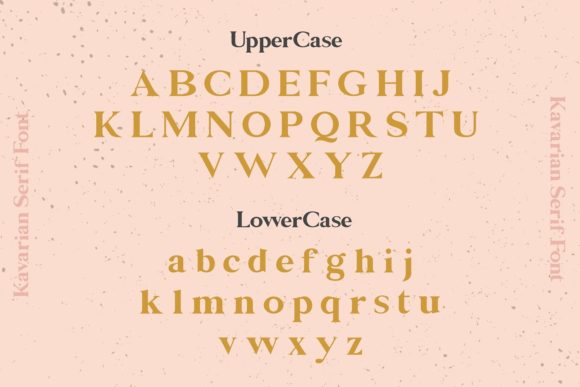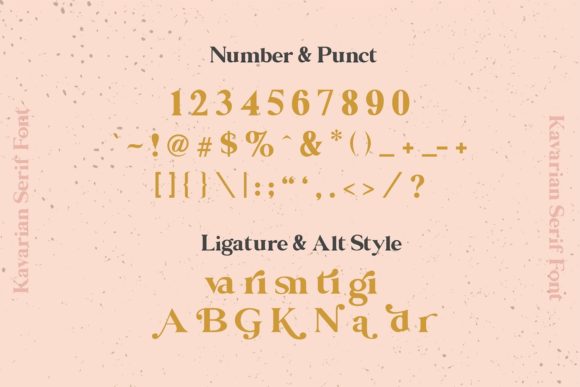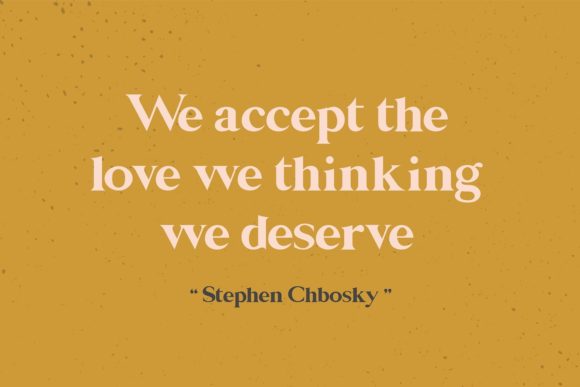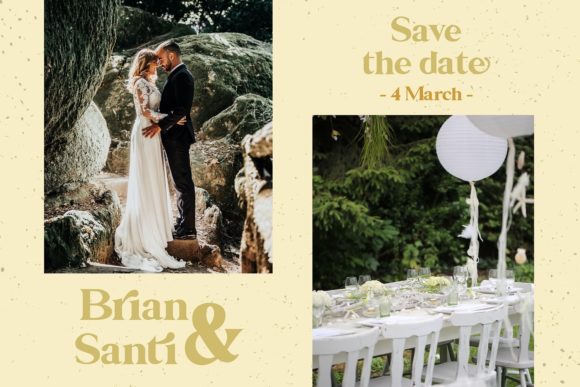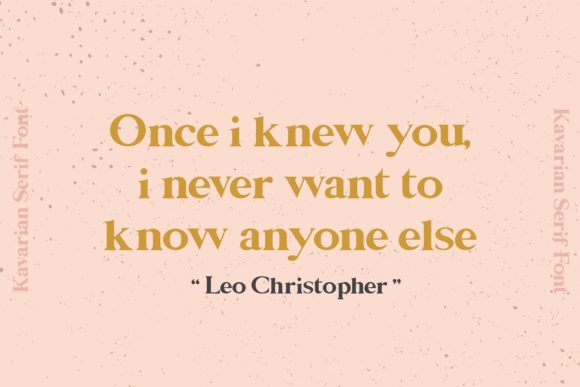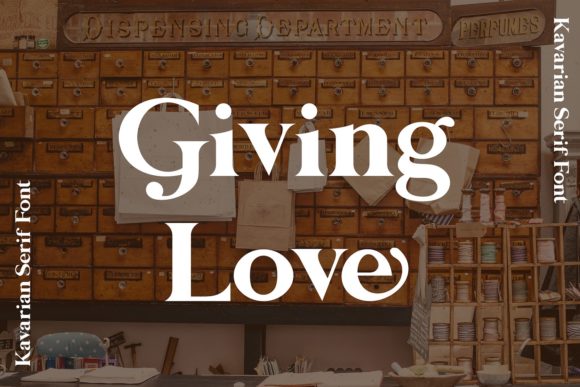
Introduction to Kavarian Font
Remember that moment when you were browsing through design inspiration boards and stumbled upon a project that left you speechless? For me, it’s when I came across a beautifully crafted logo with a stunning, elegant font that caught my attention. That moment sparked an idea, and I knew I had to dig deeper and find the perfect font to bring my creative project to life.
After hours of searching, I finally discovered the Kavarian Font, a true gem that has been waiting to elevate my designs. This elegant and distinct serif font is a game-changer for designers, offering a high-quality design resource that can be easily matched to a wide range of creative projects.
With its unique style and versatility, the Kavarian Font is a valuable addition to any designer’s toolkit, perfect for those who want to add a touch of sophistication and elegance to their designs. And the best part? It’s available for free download, making it an accessible design resource for creatives of all levels.
Key Features of Kavarian Font
- High-quality design: The Kavarian Font is designed to provide a high-quality design resource for creative projects, making it perfect for use in various applications.
- Unique design elements: The Kavarian Font features unique design elements, including custom glyphs and ligatures, adding a touch of creativity to any project.
Honest Review: Kavarian Font
I recently stumbled upon the Kavarian Font, and I must say it’s been a pleasant surprise. As a designer, I’m always on the lookout for high-quality design resources that can elevate my creative projects.
- ⚠️ Limited character set may not be suitable for extensive text-based designs
- ⚠️ Not ideal for use in small font sizes due to legibility concerns
Overall, I’m impressed with the Kavarian Font. It’s a solid addition to any design library, and I appreciate the fact that it’s available for free. With a little creativity, it can be used in a variety of creative projects. I’d definitely recommend it to fellow designers looking for a high-quality, versatile font.
The Kavarian Font is perfect for creative projects such as logos, posters, flyers, and social media graphics. Its versatility and high-quality design make it an ideal choice for designers and non-designers alike.